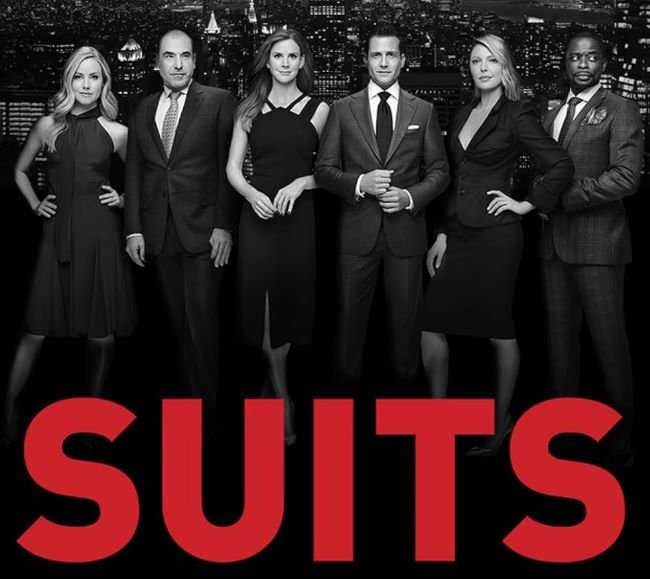
Suits font announces Harvey Specter’s world before he has walked into frame — sharp, confident, and expensively minimal, the typography of a Midtown Manhattan corner office where the carpet costs more than most people’s cars and the only thing that matters is winning.
USA Network’s 2011 legal drama needed lettering that could simultaneously communicate corporate authority and individual personality, and the clean, bold sans-serif font with its precise spacing and commanding weight delivers both without apparent effort, which is the whole point.
The freely available Suits Font gives designers access to this supremely self-assured, professional typographic register.